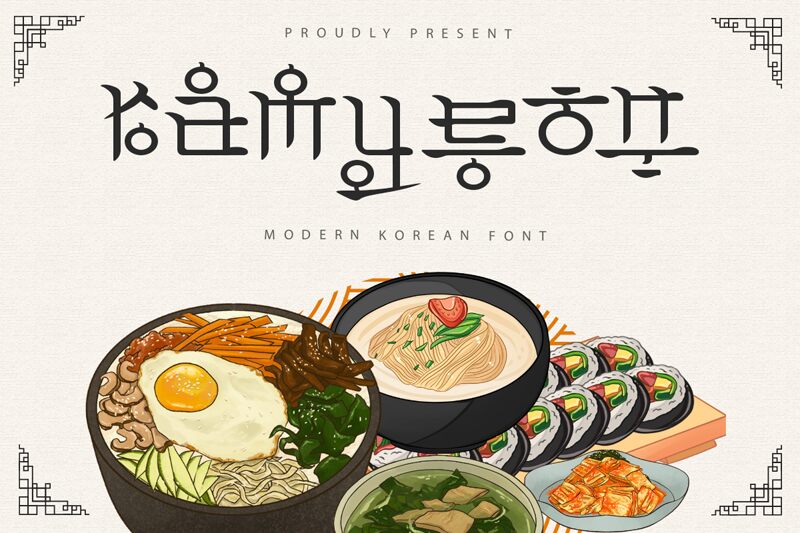
Ramyeon font is a geometric faux Korean-style typeface that feels traditional, yet unique. It has structured, clean designs beautifully visible in the expanded letters with sharp angles and cutoffs. The formal vibe makes it the perfect tool for all big projects with clients expecting incredible results.